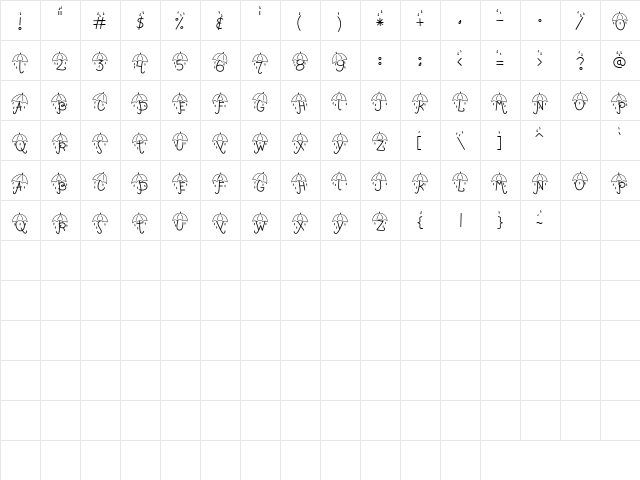
LD Umbrella Regular
Design Context for LD Umbrella Typeface
LD Umbrella is a composed and adaptable typeface that performs quietly and consistently across a wide range of design contexts.